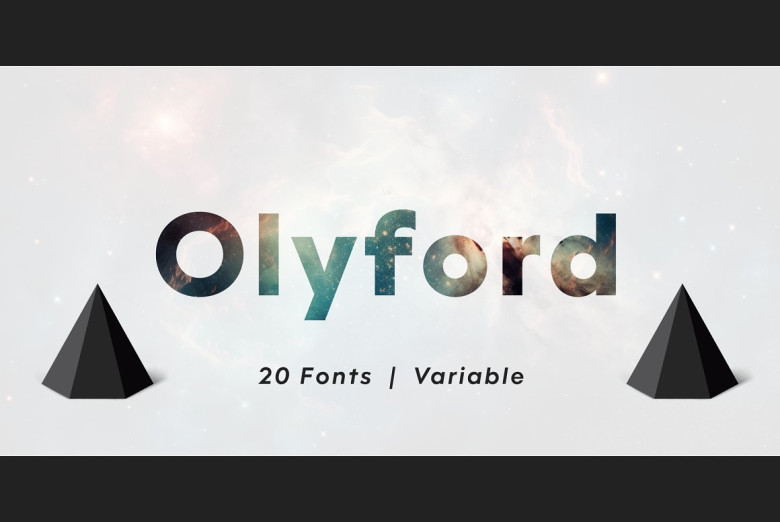
Olyford Font
Olyford was designed by Nikolay Savchuk and comprises 20 fonts that make up its family. Olyford Family can be used in packaging design, signmaking and branding editorial design software development screen and web design as well as in digital applications.
Olyford Sans Serif Font Family